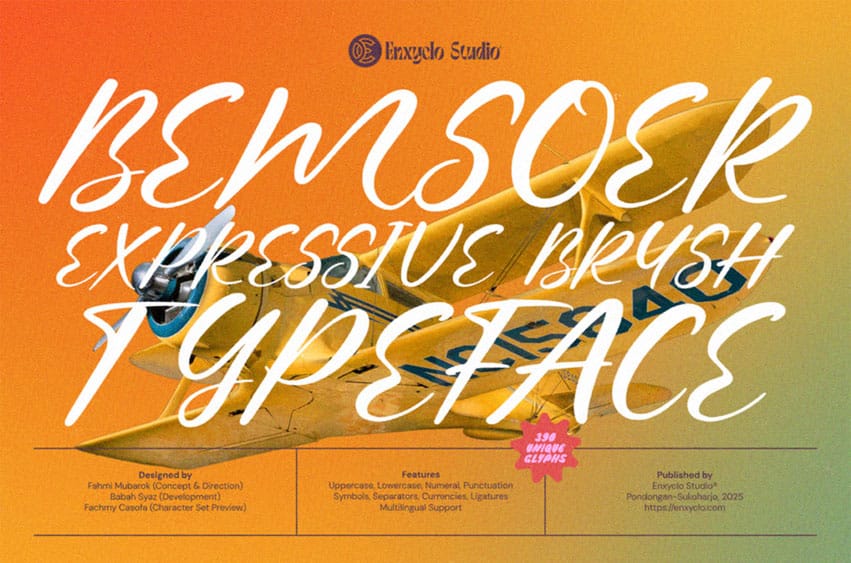
Bemsoer Font is a bold and expressive brush script font that exudes energy and spontaneity. Handcrafted with a dynamic stroke style and vintage undertones, BEMSOER is perfect for capturing attention while maintaining an organic and artistic flair. Whether you’re working on retro-inspired visuals or bold branding concepts, this typeface adds charisma and character to every letterform. BEMSOER offers plenty of flexibility for both digital and print design projects.
- Uppercase & lowercase letters
- Numbers & punctuation
- Symbols, separators & currency signs
- 390 unique glyphs
- Beautiful ligatures